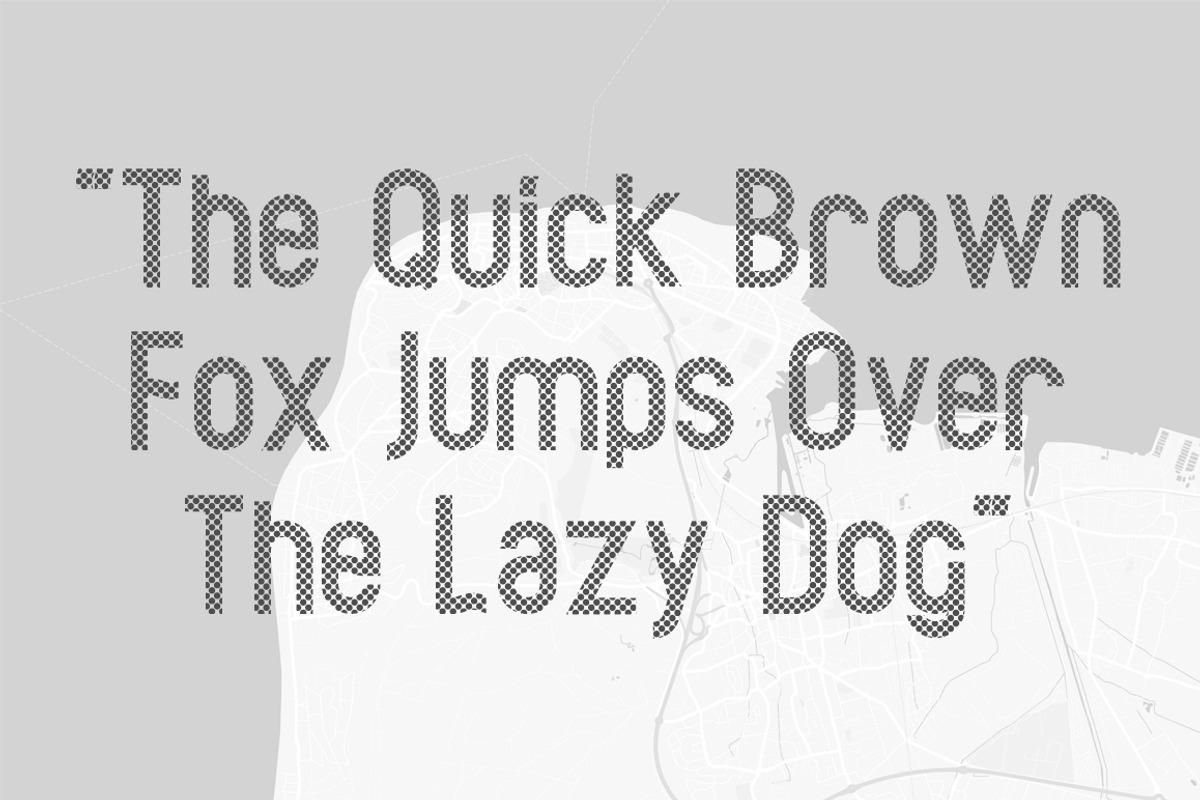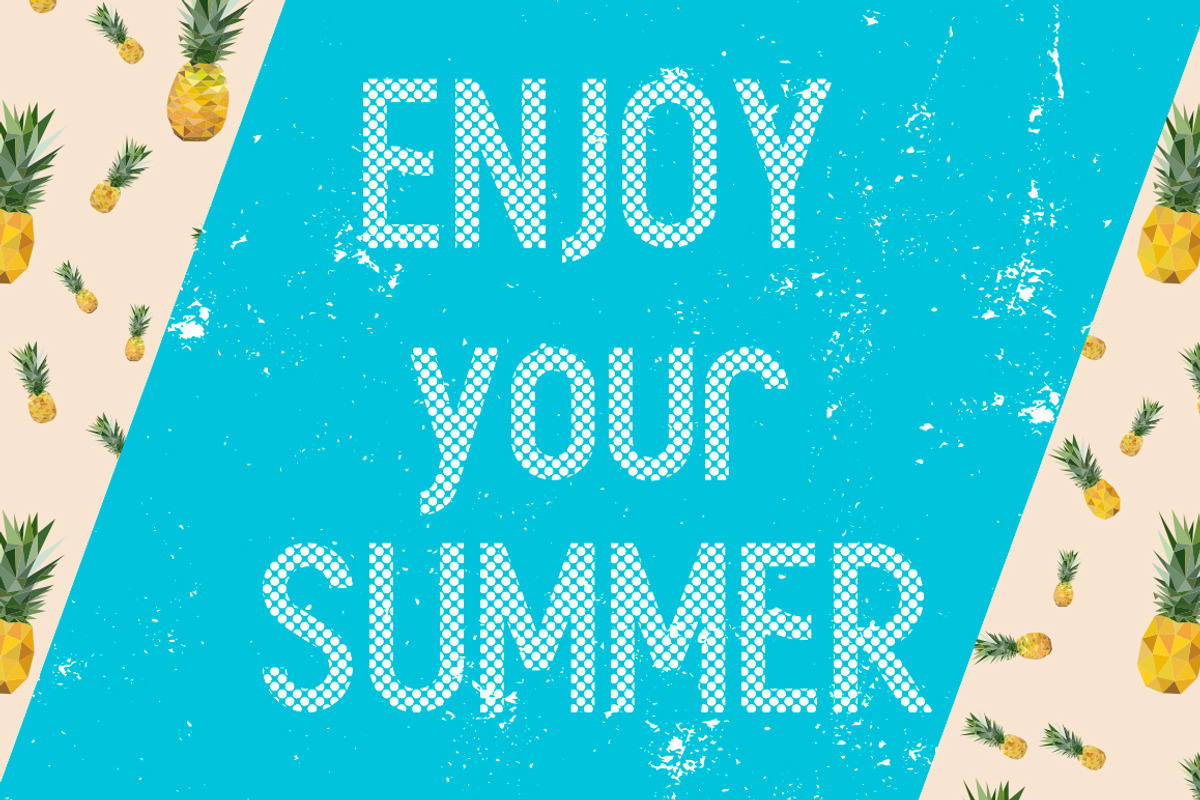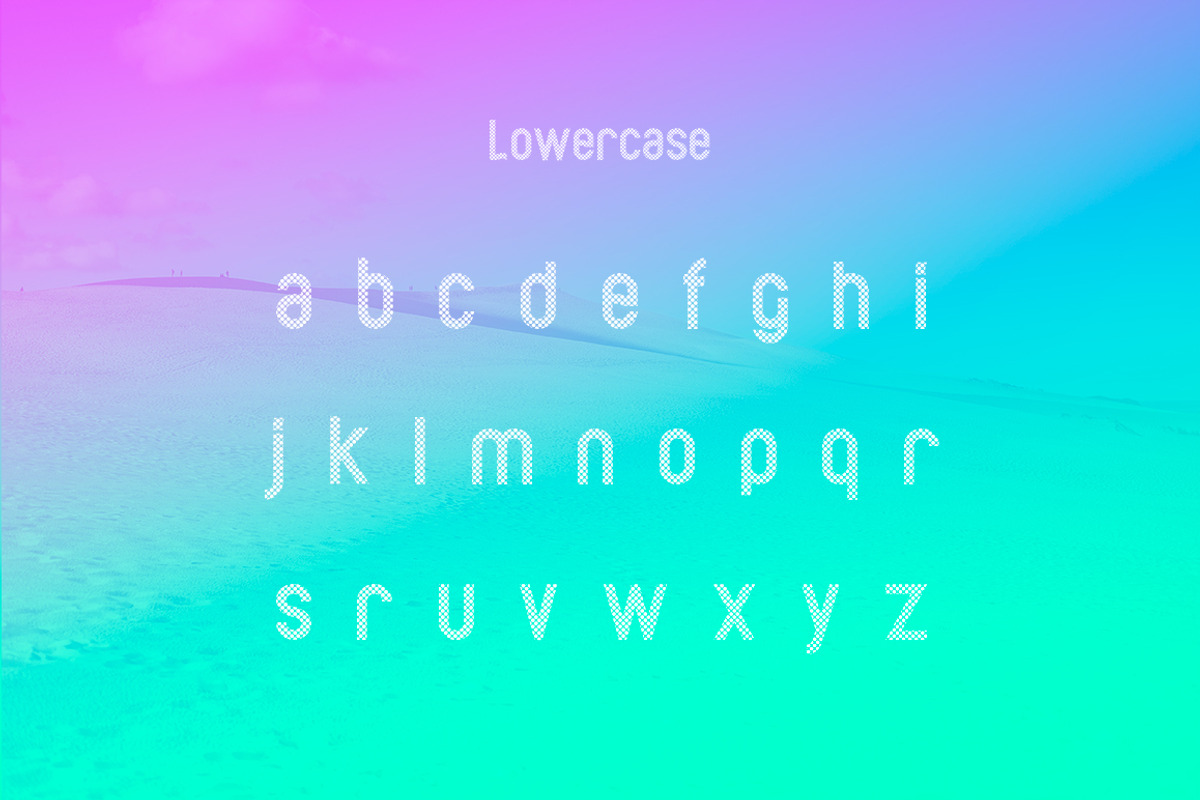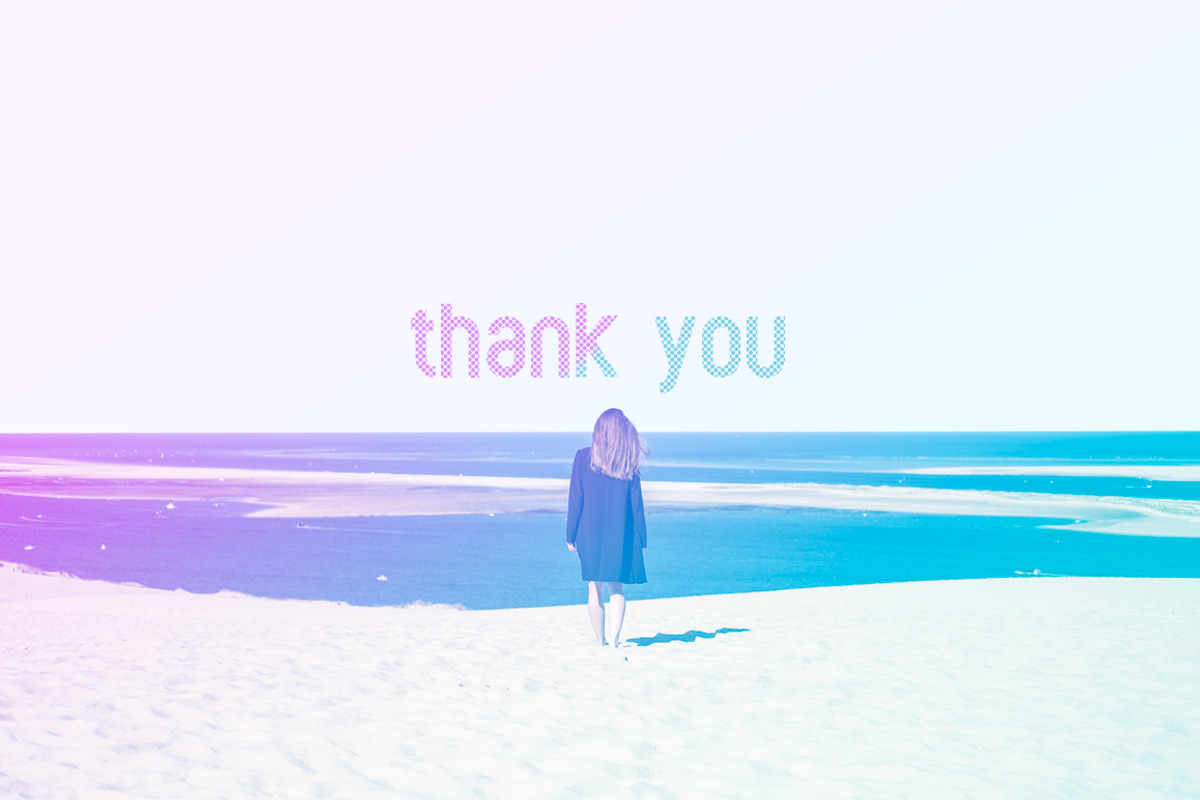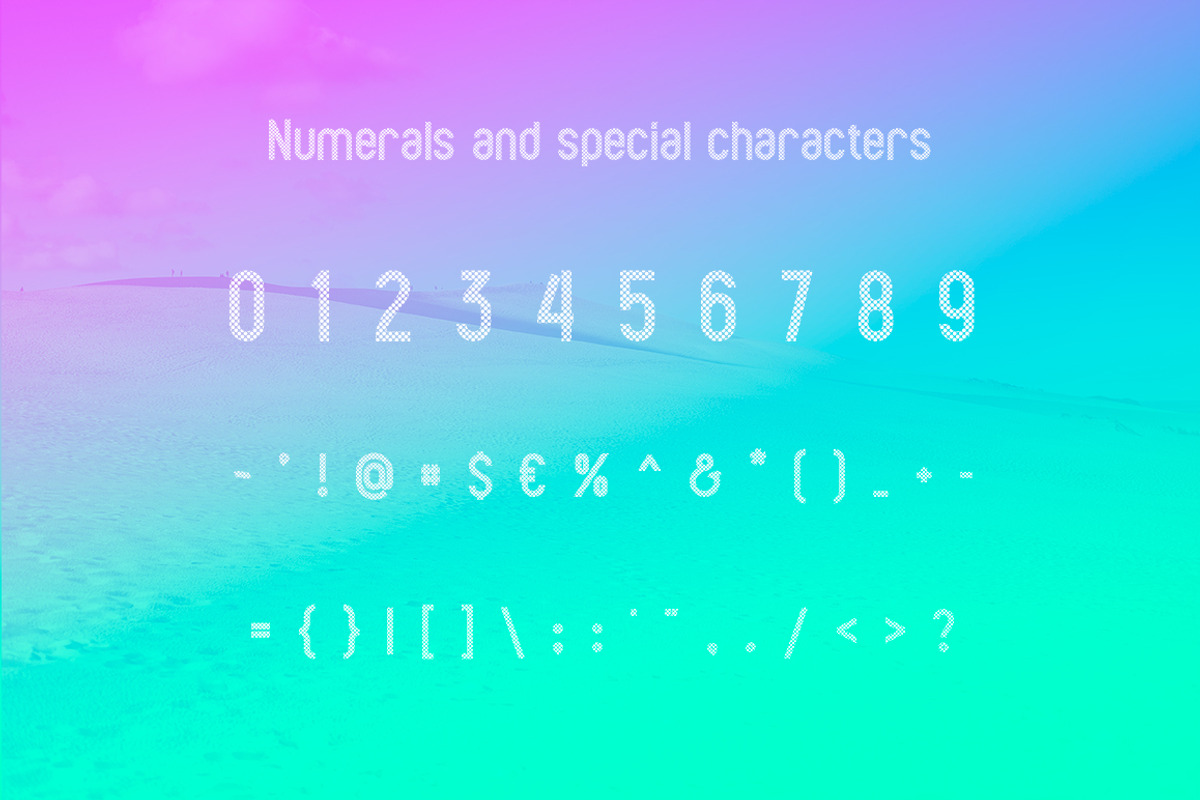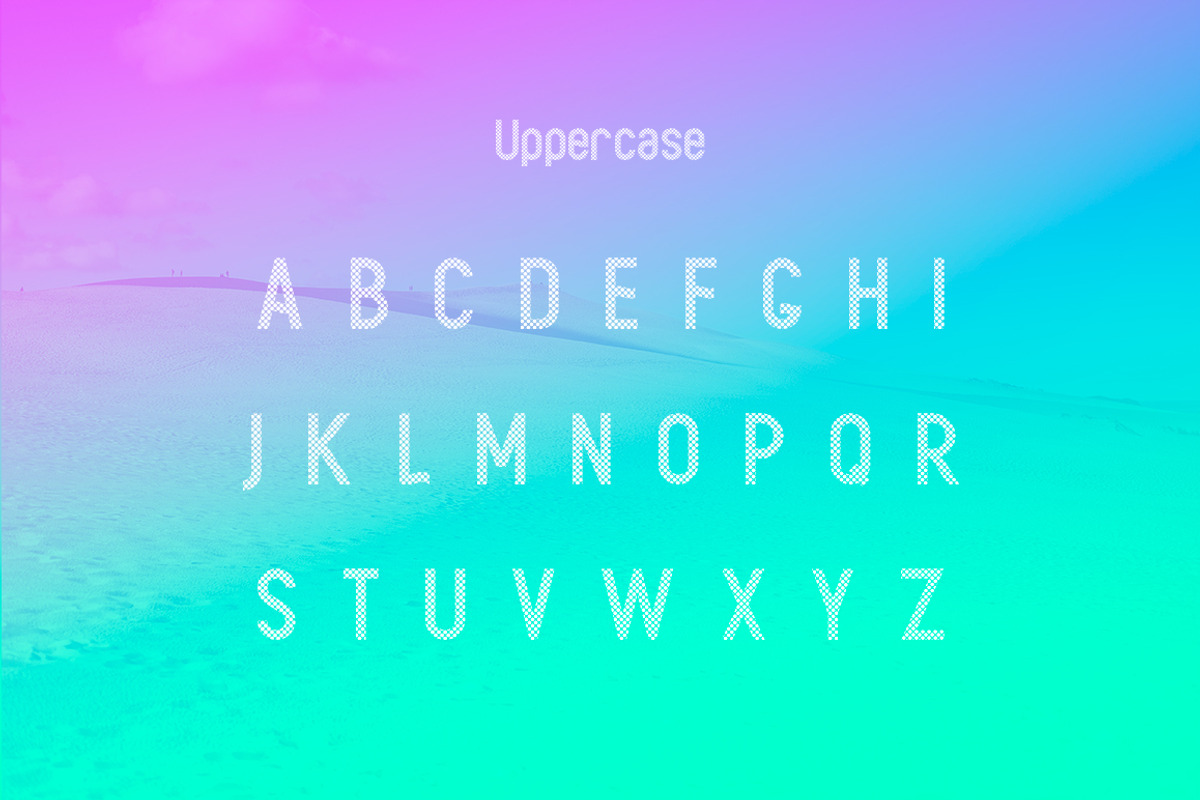
Arcachon Dotted Font
Arcachon Dotted font is a unique bold typeface.
Made for giving original titles. Arcachon packs a set of uppercase and lowercase, numbers and punctuation. Font for design greeting, logos, prints, web design, invitation, business cards, quotes, clothing brand, design greeting, cafe and much more.
Uppercase and lowercase